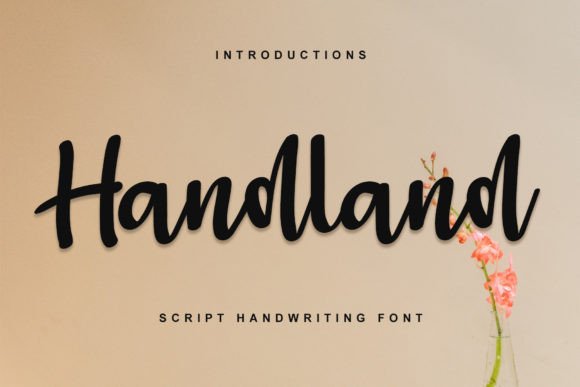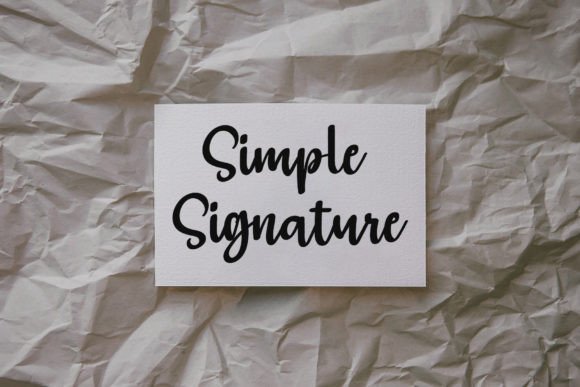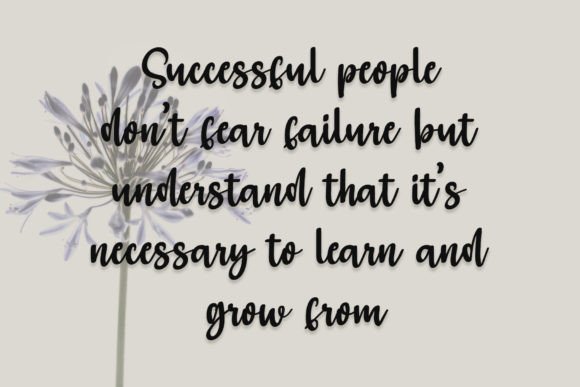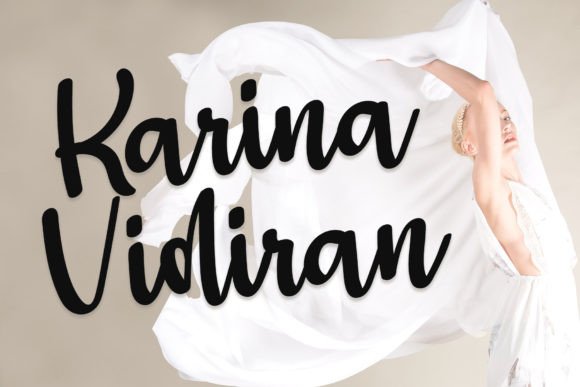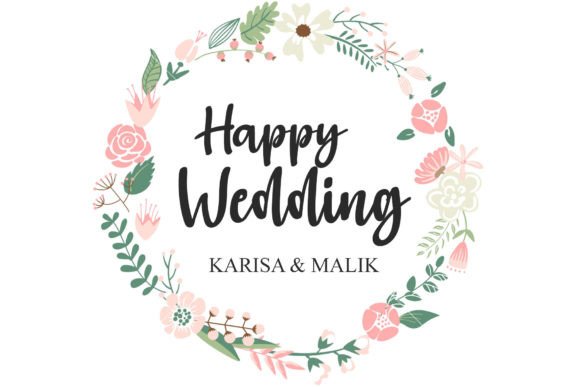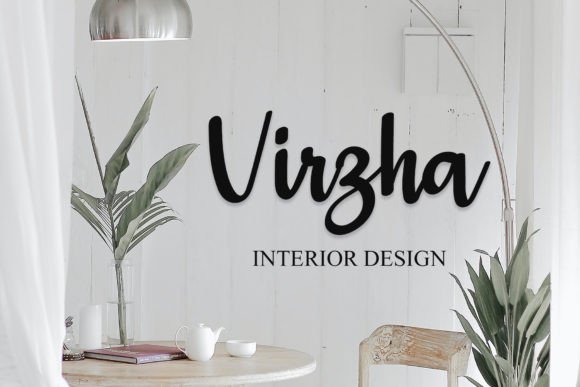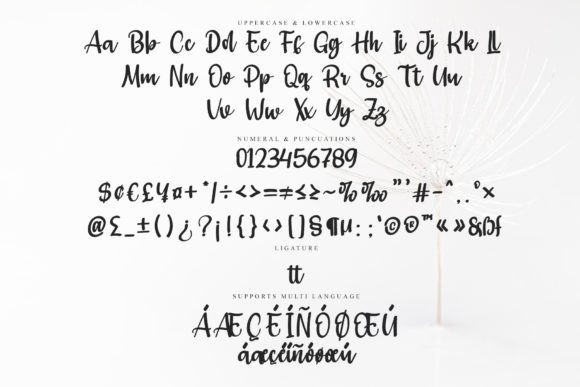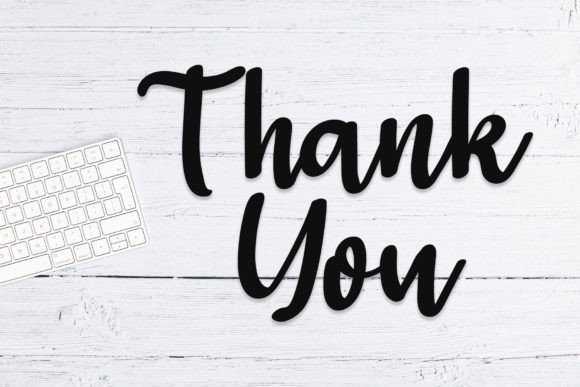
Handland Font
About Handland Font
Handland is a stylish handwritten font with a contemporary atmosphere and impeccable form, inspired by timeless classic calligraphy. Balanced and varied, this font was designed to enhance the beauty of your projects.